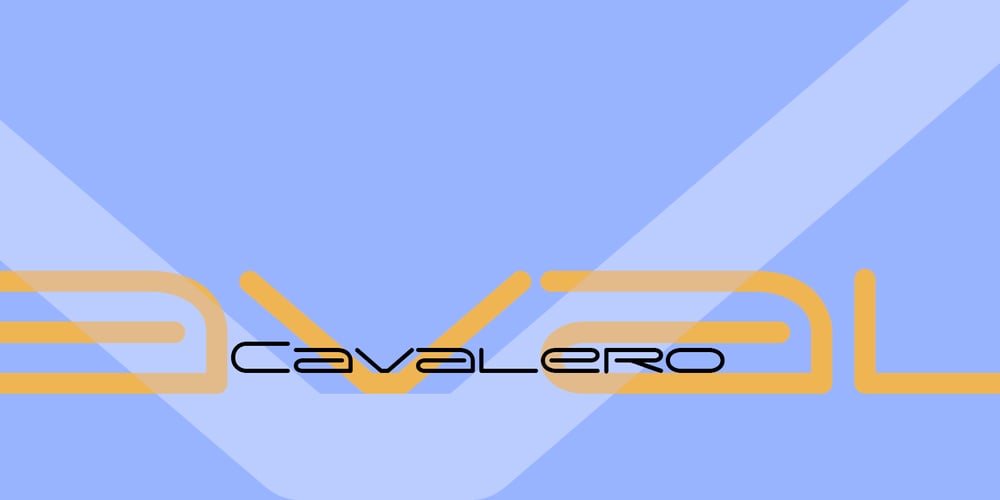
Cavalero BT Font Family was designed by Brian J. Bonislawsky and published by Bitstream. Cavalero BT contains 1 styles and family package options. A handsome, square sanserif, the ultra extended Cavalero is strictly a display design. The typeface was inspired by the Chevy Cavalier logotype.